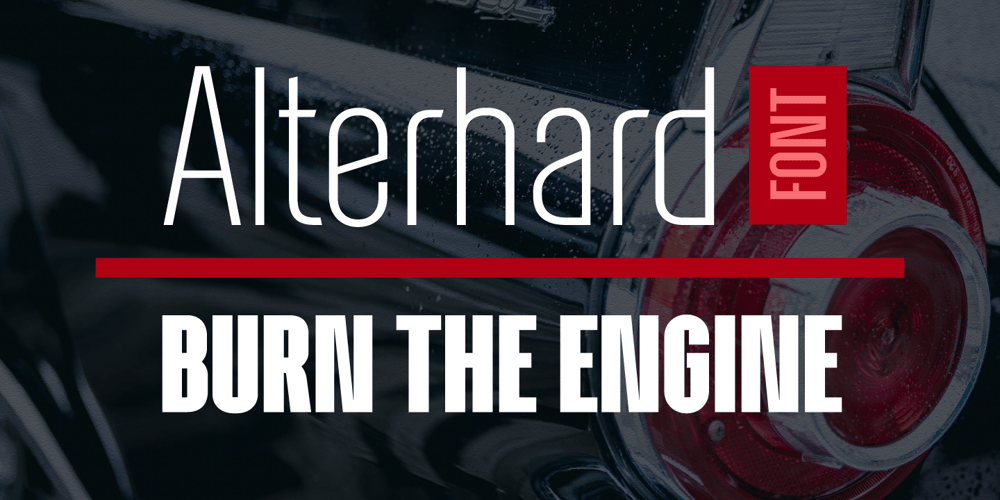
Alterhard Font Family was designed by Alexey Popov and published by Popskraft. Alterhard contains 9 styles and family package options. The Alterhard typeface combines the inimitable craftsmanship of the great condensed styles of the early twentieth century and at the same time looks organic and even unusual among modern ones. A distinctive feature of the Alterhard typeface is the smooth transition from the geometrically strict extremely compressed shapes of the bold typefaces to the classic sparse shape of the compressed typeface in light weights. Also unusual for vertical fonts are oblique elements in lowercase letters, which give uniqueness, liveliness and originality to the classic type of font.This allows the Alterhard typeface to be used in any design field such as corporate identity, typography, posters, web design, and other design areas. The set comes in 9 font sizes for rich typography.